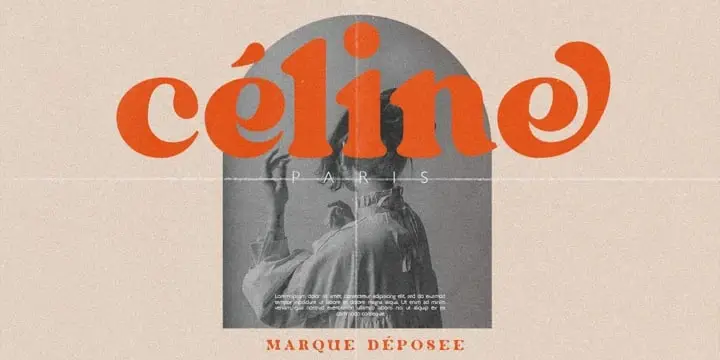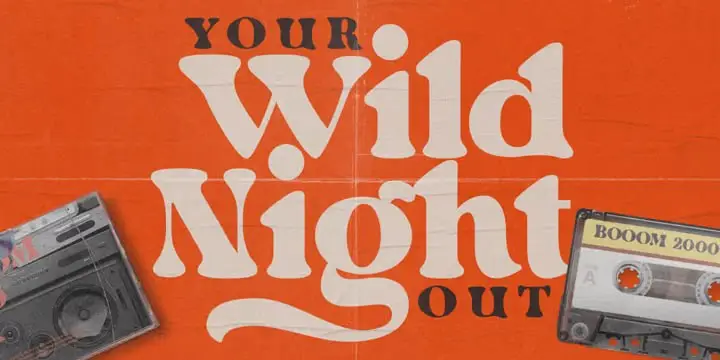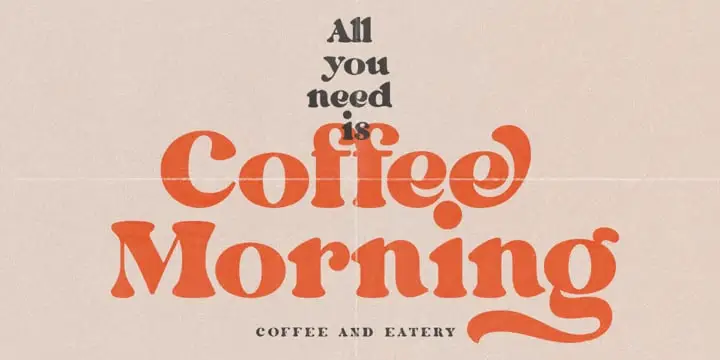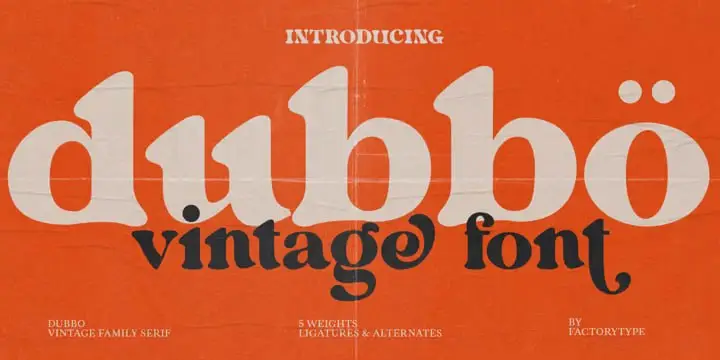
The Dubbo Font is a versatile typeface designed to bring a modern touch to your projects. With its clean lines and contemporary aesthetic, this font is perfect for a variety of applications, including branding, logos, web design, print materials, and user interfaces.
- Styles: Available in regular, bold, and italic styles
- Weights: Light, Regular, Medium, Bold
- Ideal for both digital and print projects
- Great for headlines, body text, and promotional materials
- Combine with contrasting fonts for a dynamic look